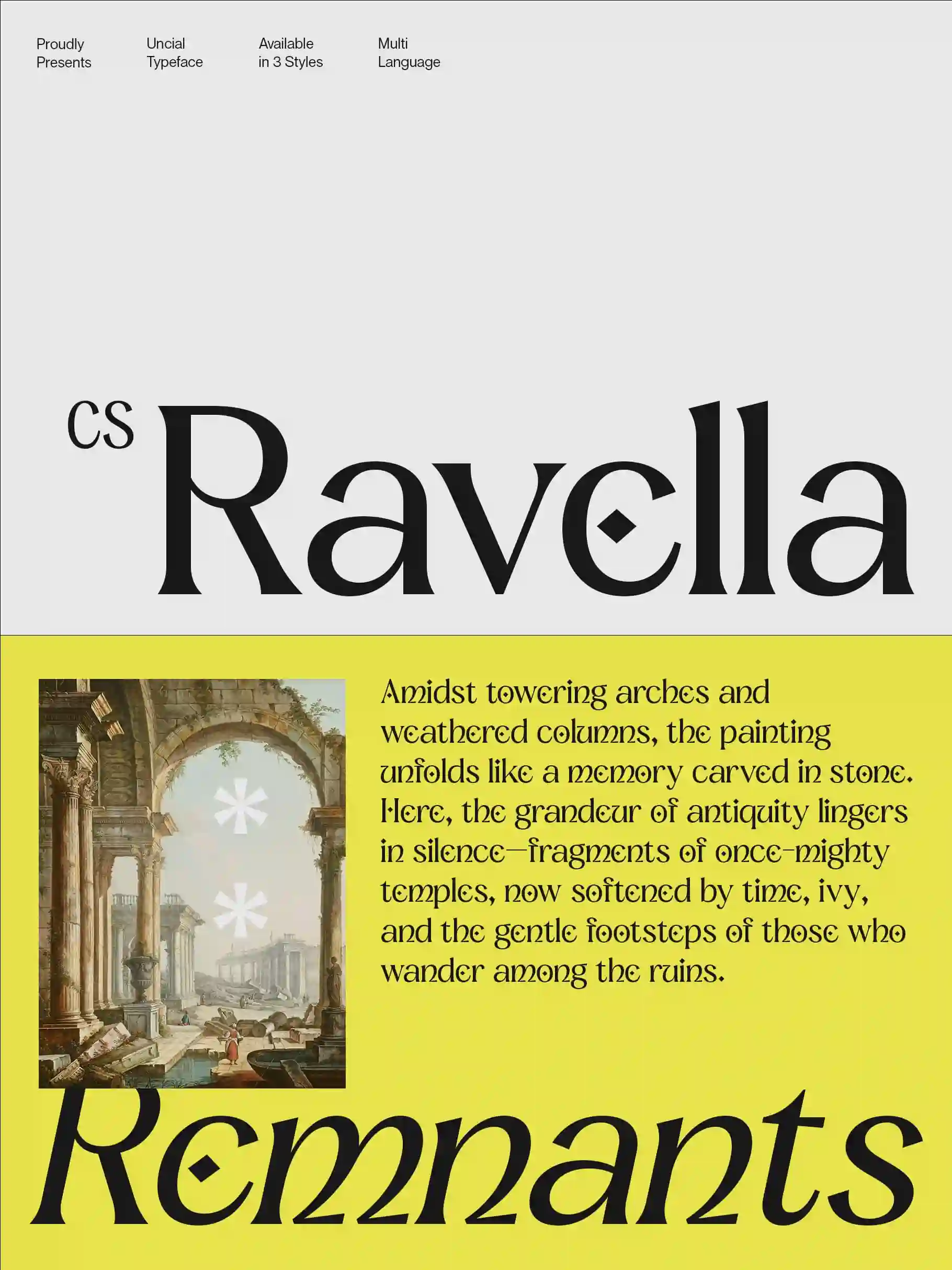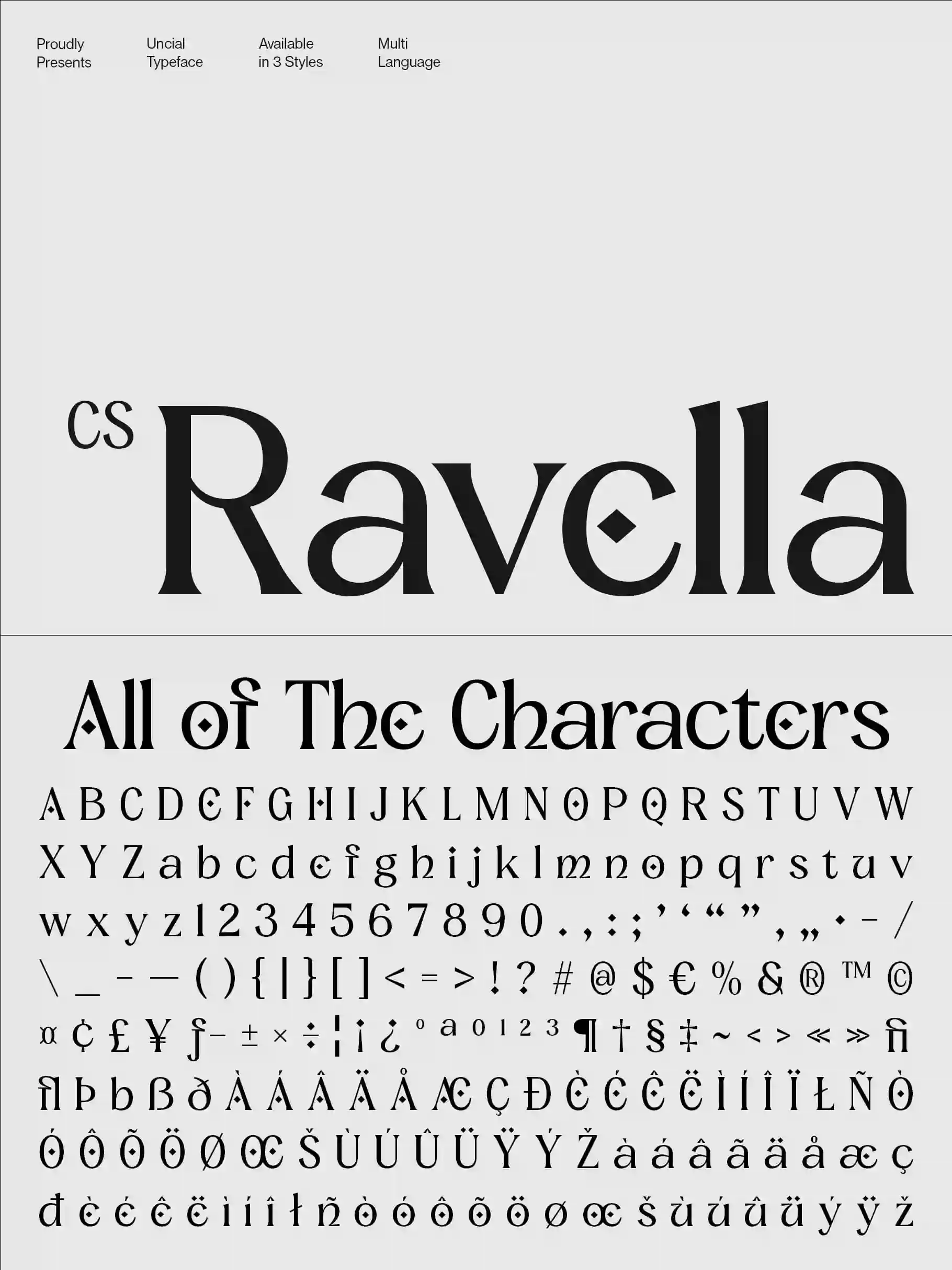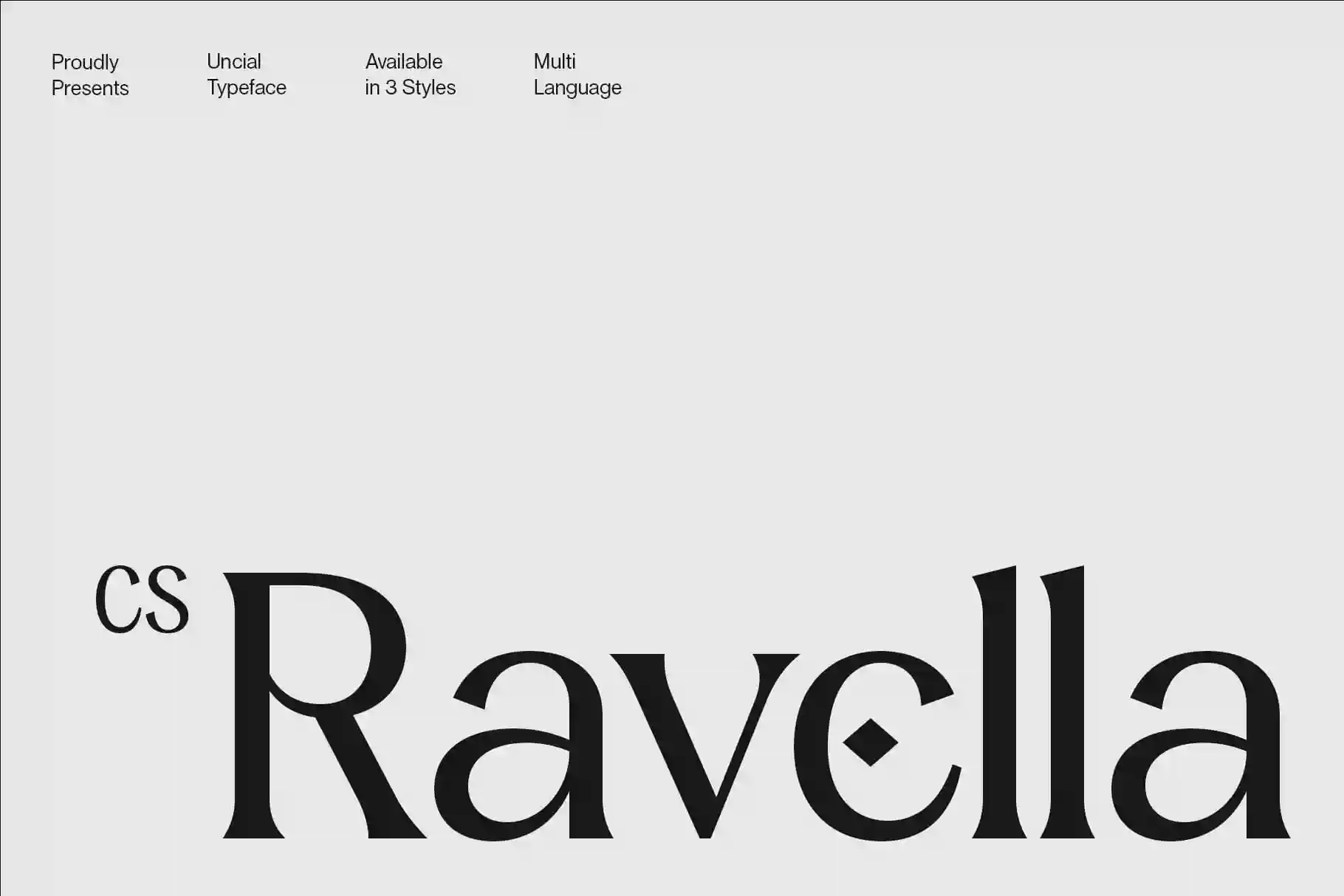
CS Ravella – Uncial Font with Historical Elegance
Uncial Font with Historic Letterforms
Inspired by Ancient Manuscripts
CS Ravella is a font that channels the timeless artistry of ancient manuscripts. Its historic letterforms reflect the depth and tradition of early writing systems, capturing a sense of heritage while reimagining it for contemporary design. With this strong historical influence, CS Ravella creates a bridge between the past and modern creativity.
Classic Elegance with Unique Character
Blending historical structure with refined design, CS Ravella radiates classic elegance. Its uncial forms are both graceful and distinctive, ensuring that typography feels sophisticated yet unique. Every curve and detail contributes to a style that stands out, making it more than just a revival it’s a font with its own identity.